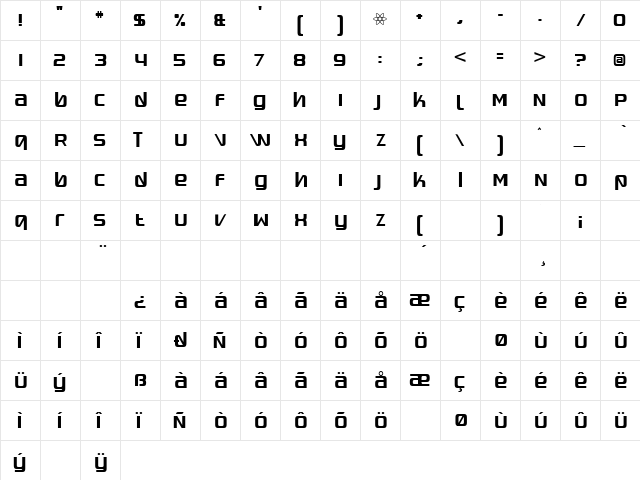
Quadaptor Regular
Design Context for Quadaptor Typeface
Quadaptor offers clean, dependable letterforms without strong stylistic allegiance, making it a practical choice for designers who need flexibility.
Pro Tip: Use Quadaptor in both headline and body roles to test its range before committing to a single application.